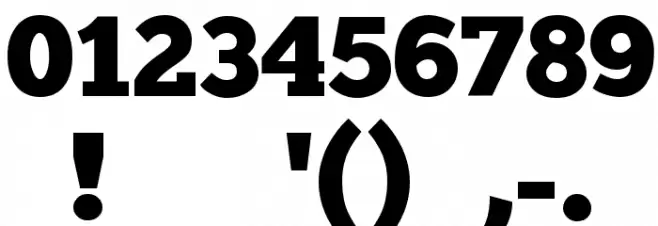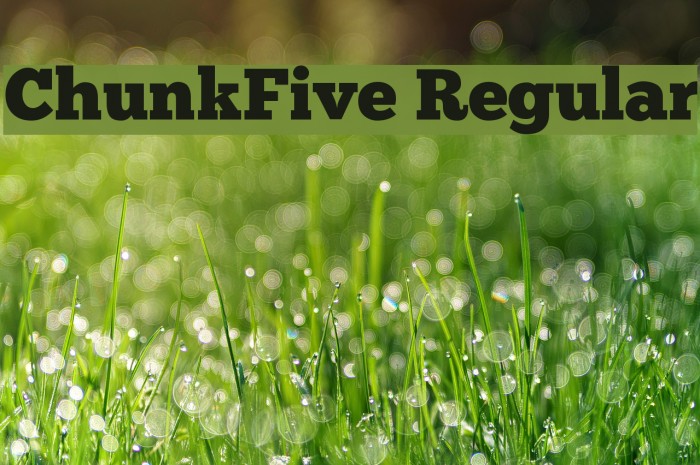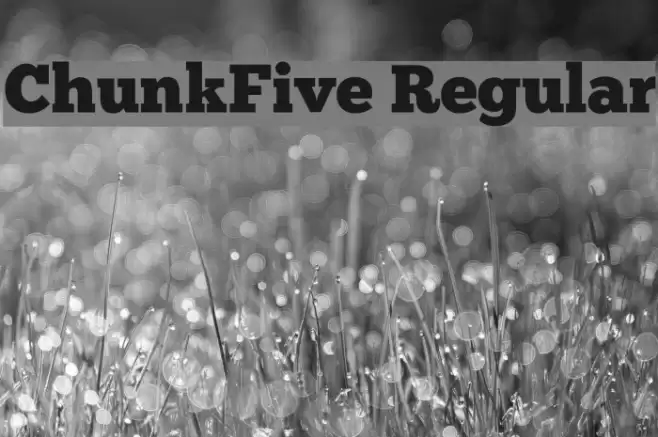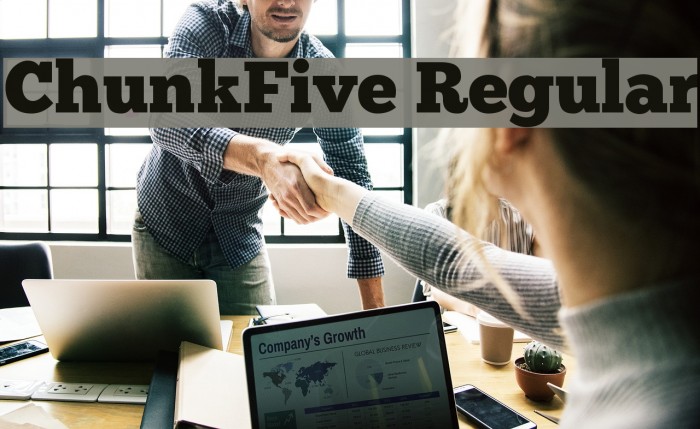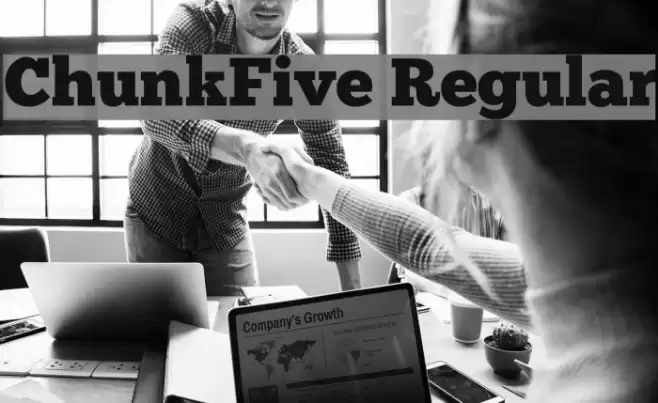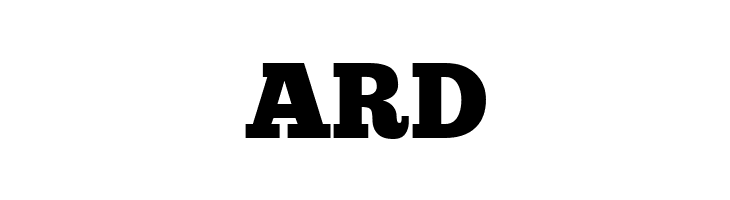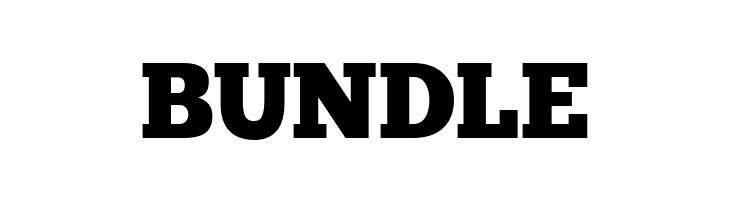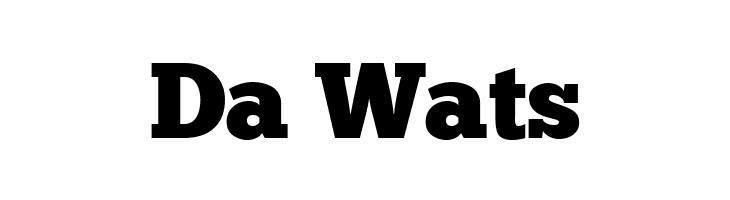
ChunkFive Regular Font
ChunkFive Regular Description
This font features bold, thick strokes with a strong presence, making it ideal for attention-grabbing headlines and impactful designs. The characters are well-defined with a slab serif style, providing a classic yet modern look. The uppercase and lowercase letters maintain a consistent weight, ensuring readability and uniformity. The numbers and special characters are equally bold, complementing the overall aesthetic. This font's robust design makes it suitable for various applications where a strong visual impact is desired.
A bold, slab serif font with strong, thick strokes for impactful designs from Uncategorized fonts.
• Proposed Projects: Ideal for posters, headlines, branding materials, and any project requiring a bold statement.
• Contrast: Low
• Overall Style: Modern
• Use Case: Headlines, Logos, Posters